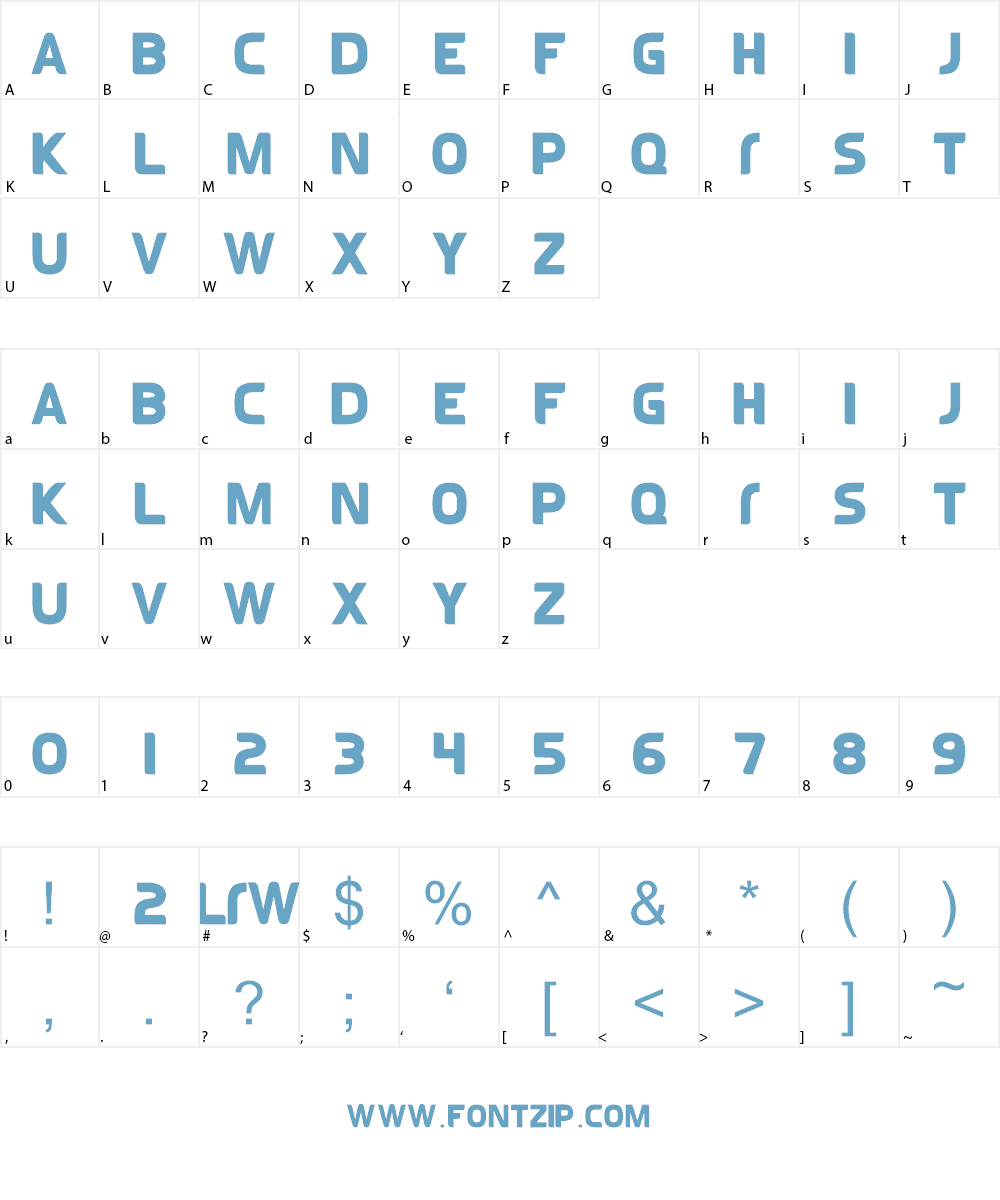
Based on the LRW 2012 logo, this is a remake of the Lifetime Real Women 2012 logo, "The Real Women". It looks similar to the Rai font, but I wanted to share this with Jack West.